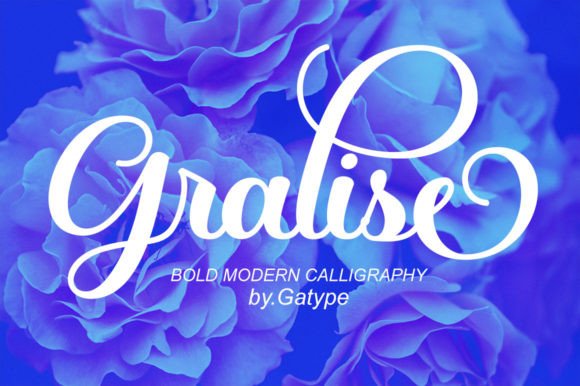
Gralise Font: Elevate Your Designs with Elegance and Sophistication
In the world of typography, fonts play a crucial role in conveying the tone and personality of a brand or design. Among the numerous fonts available, Gralise Script stands out as an elegant and modern handwritten font that has gained popularity for its versatility and aesthetic appeal. This beautiful calligraphy typeface is perfect for wedding designs, branding materials, blog titles, quotes and invitations, and business cards. In this article, we’ll explore the features, benefits, and uses of Gralise Font, and why it’s an excellent choice for designers and businesses looking to elevate their designs.
Key Features of Gralise Font
- Elegant and Modern Design: Gralise Script boasts a sleek and contemporary design that adds a touch of sophistication to any project.
- Handwritten Style: The font’s handwritten style gives it a personal and unique feel, making it perfect for designs that require a human touch.
- Versatile: Gralise Font is highly versatile and can be used for a wide range of projects, from wedding designs to business cards.
- Easy to Read: Despite its elegant and cursive nature, Gralise Font is easy to read, making it suitable for body text and headlines.
Creative Uses of Gralise Font
Gralise Script is an excellent choice for various design projects, including:
- Wedding Designs: Gralise Font is perfect for wedding invitations, save-the-date cards, and wedding stationery, adding a touch of romance and elegance to the design.
- Branding Materials: The font’s modern and sophisticated design makes it an excellent choice for branding materials, such as logos, business cards, and letterheads.
- Blog Titles and Quotes: Gralise Font can be used to create stunning blog titles, quotes, and social media posts that grab attention and convey a sense of style.
- Invitations: The font’s elegant design makes it suitable for various types of invitations, including birthday, baby shower, and graduation invitations.
- Business Cards: Gralise Font can be used to create professional and stylish business cards that make a lasting impression.
Benefits of Using Gralise Font
Using Gralise Script in your designs offers several benefits, including:
- Unique and Distinctive: Gralise Font’s elegant and modern design sets it apart from other fonts, making your designs stand out.
- Highly Versatile: The font’s versatility allows you to use it for various projects, from print to digital designs.
- Easy to Pair: Gralise Font pairs well with other fonts, making it easy to create harmonious and visually appealing designs.
- Professional and Sophisticated: The font’s elegant design conveys a sense of professionalism and sophistication, making it perfect for businesses and brands.
Tips for Using Gralise Font Effectively
To get the most out of Gralise Script, follow these tips:
- Use it Sparingly: Use Gralise Font sparingly to create emphasis and add elegance to your designs.
- Pair it with Other Fonts: Pair Gralise Font with other fonts to create visually appealing and harmonious designs.
- Experiment with Sizes and Colors: Experiment with different sizes and colors to create a unique and eye-catching design.
- Consider the Context: Consider the context and purpose of your design when using Gralise Font, ensuring it aligns with the tone and personality of your brand or message.
In conclusion, Gralise Script is an elegant and modern handwritten font that offers a unique and sophisticated touch to various design projects. Its versatility, ease of use, and aesthetic appeal make it an excellent choice for designers and businesses looking to elevate their designs. By following the tips outlined in this article, you can effectively use Gralise Font to create stunning designs that convey a sense of style and professionalism.